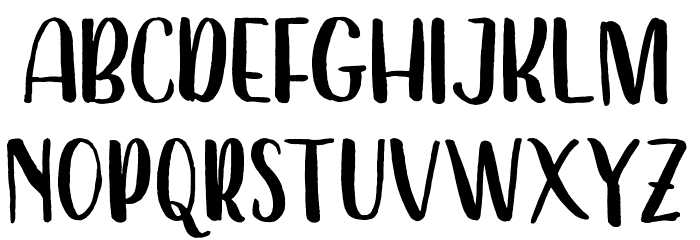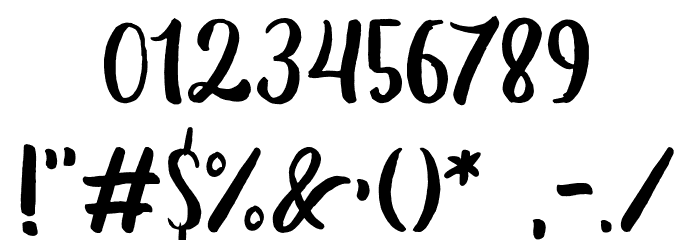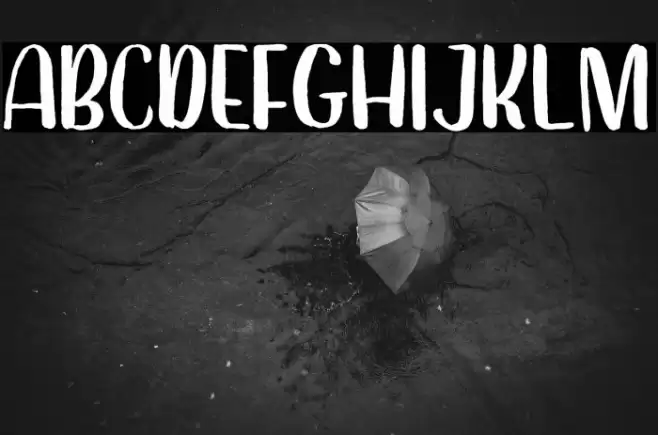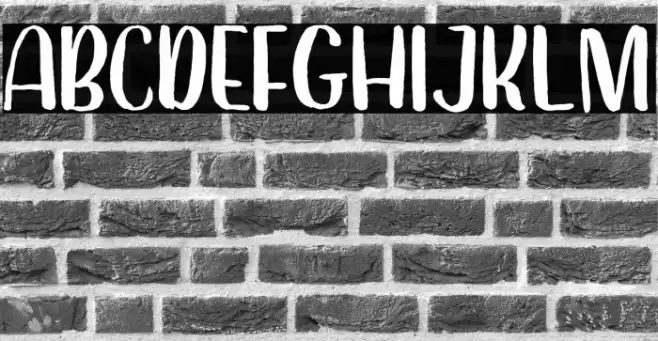
Dearday-Sans Font
This font features a bold, handwritten style with a playful and artistic flair. The characters are crafted with a brush-like texture, giving them a dynamic and energetic appearance. The uppercase and lowercase letters maintain a consistent flow, while the numbers and special characters complement the overall aesthetic. The strokes are thick and expressive, creating a strong visual impact. This font is ideal for projects that require a personal touch or a creative, informal vibe.
A bold, handwritten font with a brush-like texture and playful style.
- Font: Dearday-Sans
- Proposed Projects: Ideal for greeting cards, posters, branding, social media graphics, and creative invitations.